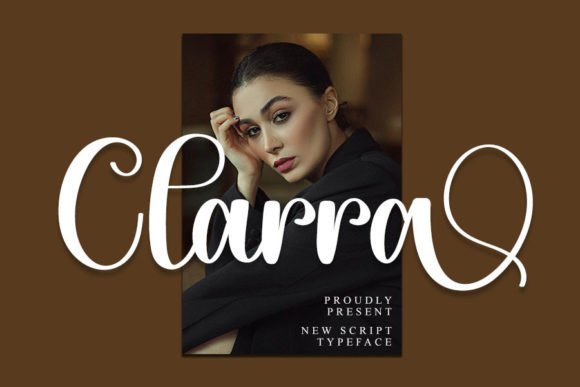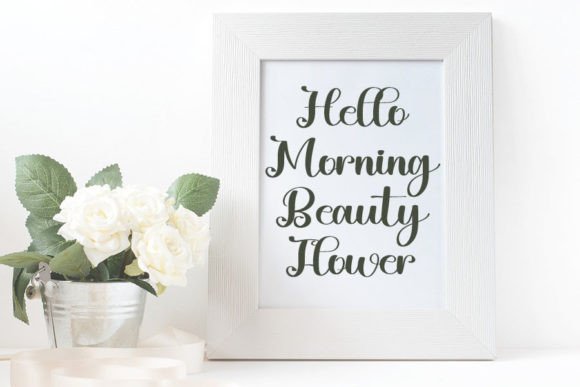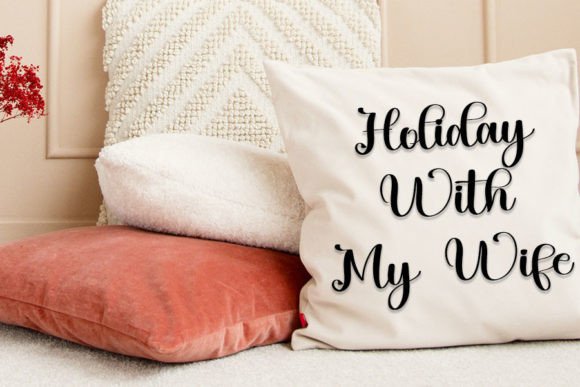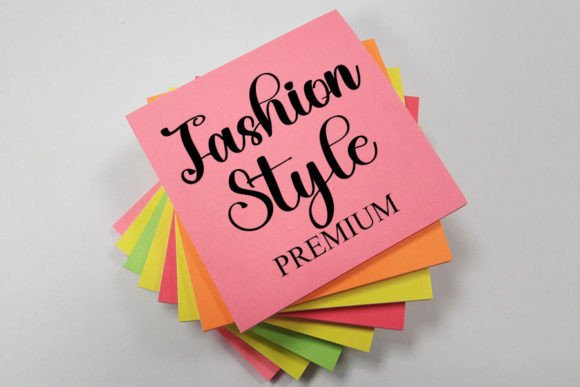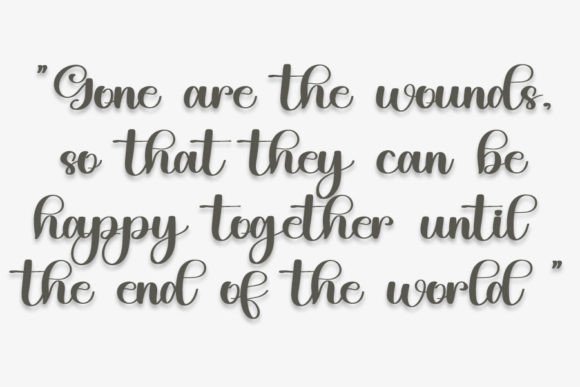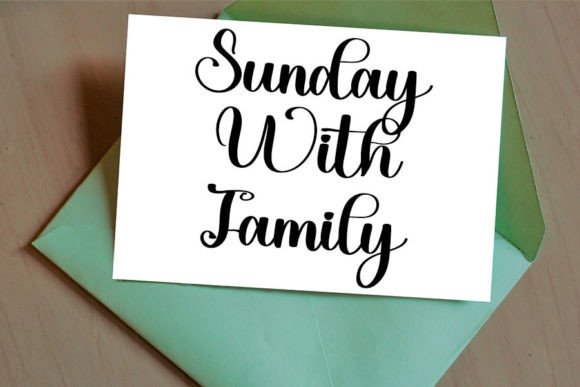
Clarra Font
About Clarra Font
The Clarra Font Download is a stylish handwritten script with a modern yet timeless appeal. Inspired by the elegance of classic calligraphy, it blends smooth curves and varied strokes to deliver an authentic handwritten feel. Its contemporary atmosphere makes it versatile enough to work in both professional branding and creative personal projects.
Whether you’re working on invitations, logos, or packaging, the Clarra Font Download ensures your designs radiate charm and sophistication.
Features of Clarra Font
• Stylish handwritten script with calligraphy influence
• Balanced and varied strokes for natural rhythm
• Full set of uppercase, lowercase, numbers, and punctuation
Best Uses for Clarra Font
The Clarra Font Download is designed to enhance a wide range of projects, including:
• Wedding Invitations & Stationery – Add elegance to your special day
• Logos & Branding – Create a memorable identity with a stylish script
• Product Packaging – Give your labels and merchandise a professional finish
• Social Media Posts – Make your captions and graphics stand out
• Quotes, Prints & Posters – Highlight words with timeless beauty
Why Choose Clarra Font?
The Clarra Font Download is more than just a font—it’s a design tool that captures the harmony of handcrafted artistry. Its impeccable balance and contemporary look allow it to adapt seamlessly to different styles and formats.
Designers love Clarra because it combines professional polish with a warm, personal touch, making it ideal for projects that require authenticity and elegance.
The Clarra Font Download is a must-have for anyone looking to elevate their creative projects. From wedding stationery to digital branding, this handwritten script delivers both timeless sophistication and modern flair.
Bring your ideas to life with the graceful and versatile style of Clarra Font—it’s the perfect blend of tradition and creativity.